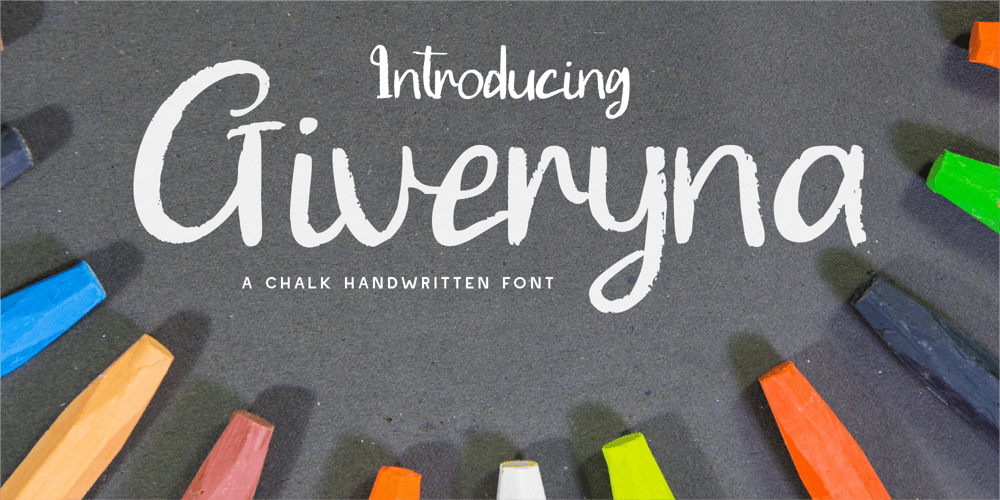
CF Giveryna Font Family was designed by Gilang Mei Nugraha, Frederik Aristaputra and published by Creatifont Studio. CF Giveryna contains 2 styles and family package options. Giveryna – A Textured & Playful Chalk Handwritten FontStep into the creative world of chalk artistry with Giveryna, a chalk handwritten font that brings a natural, hand-drawn texture to your designs. Featuring rough, organic strokes that mimic real chalk on a blackboard, this font adds a sense of warmth, nostalgia, and creativity to any project.Perfect for educational materials, café menus, kids’ branding, DIY projects, event posters, and creative packaging, Giveryna captures the charm of a friendly, hand-sketched style while maintaining readability. Whether you’re designing for classroom themes or rustic chalkboard aesthetics, this font offers authentic handmade appeal.Why Choose Giveryna?🖍 Authentic Chalk Texture: Hand-drawn strokes for a realistic chalkboard effect.🎨 Fun & Playful: A lively, handcrafted feel perfect for school, cafés, and casual designs.📖 Ideal for Education & Branding: Great for classroom posters, menus, and promotional materials.🌍 Multilingual Support: Includes numbers, symbols, and extensive language compatibility.Give your designs a friendly, handcrafted touch with Giveryna—Download now and bring chalkboard charm to your projects! 🎨🖍A SUMMARY OF WHAT’S INCLUDED:- Standard Character A-Z, a-z, 0-9, Punctuation & symbols- Regular and Italic- Works on PC & Mac- Simple installation- Accessible in Adobe Creative Suite (Ai, Ps, Id, etc.) even work on Microsoft Word.- PUA Encoded Characters – Fully accessible without additional design software.🌟If you come across any issues or notice anything we might have overlooked while using this product, please feel free to reach out to us. We greatly value your feedback as it helps us enhance and refine our products. Thank you!